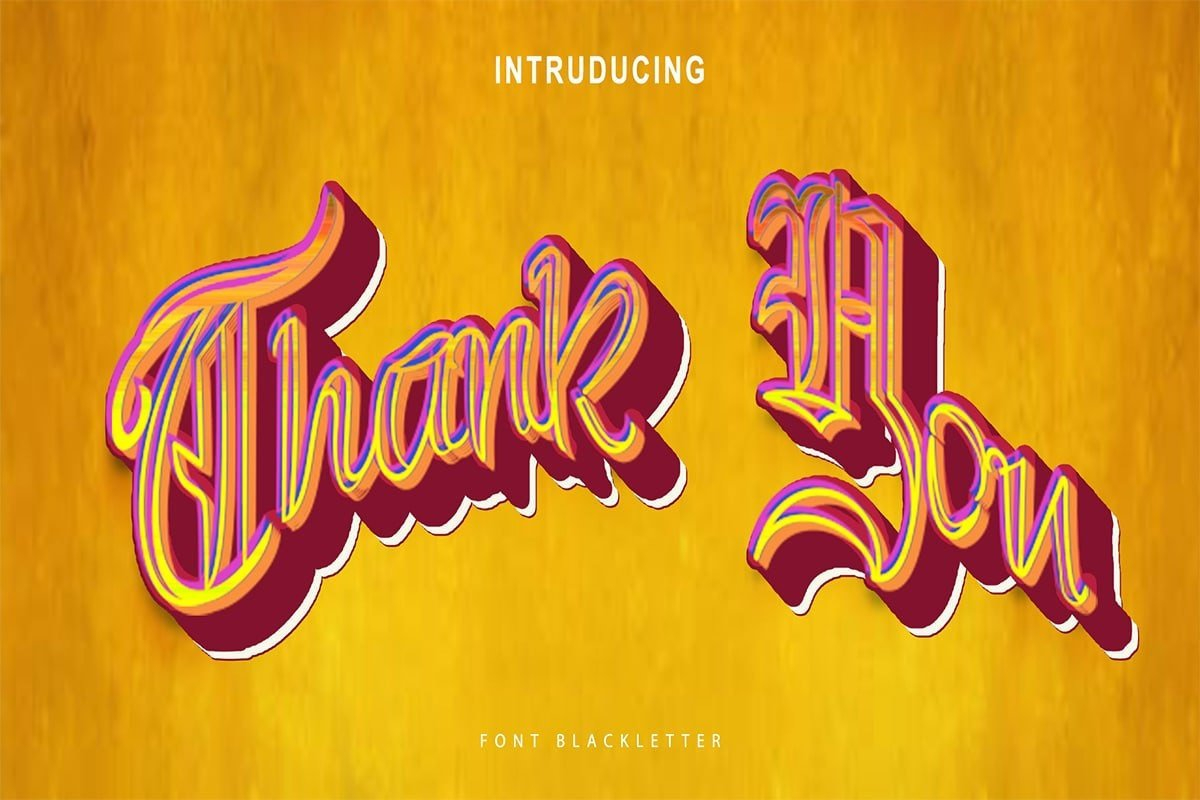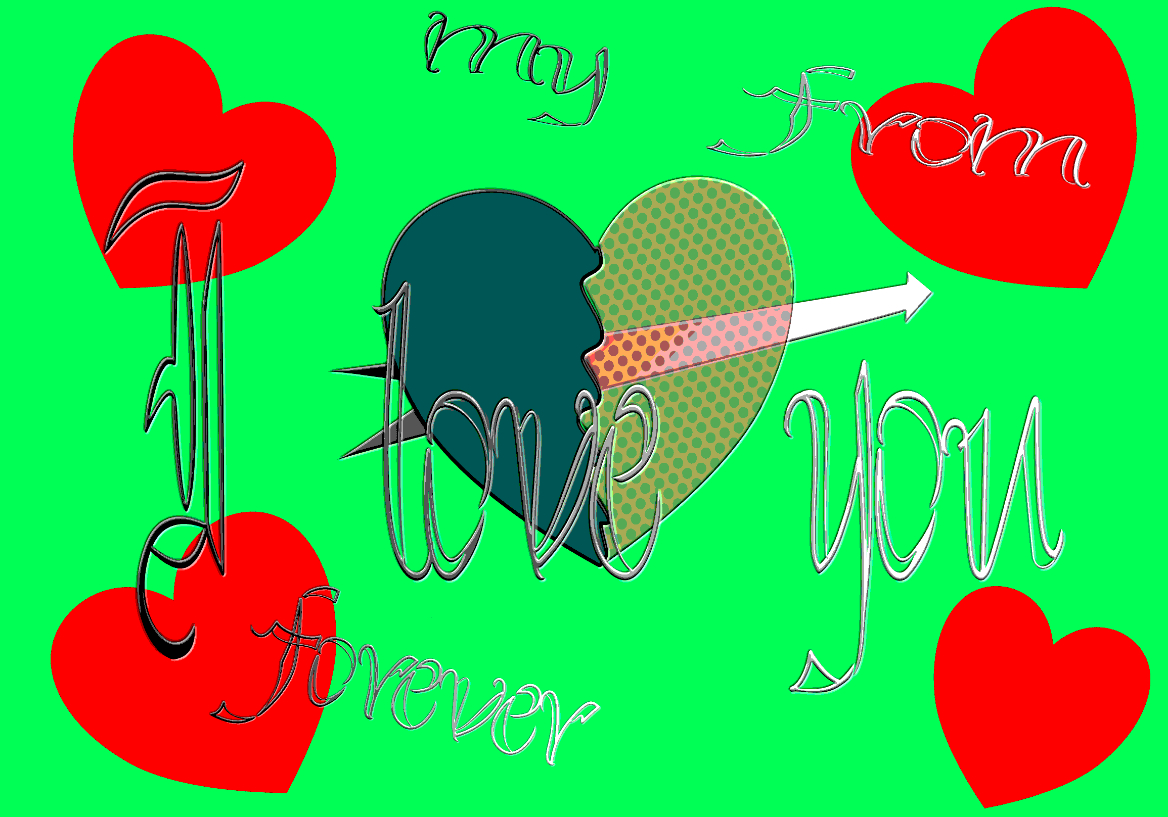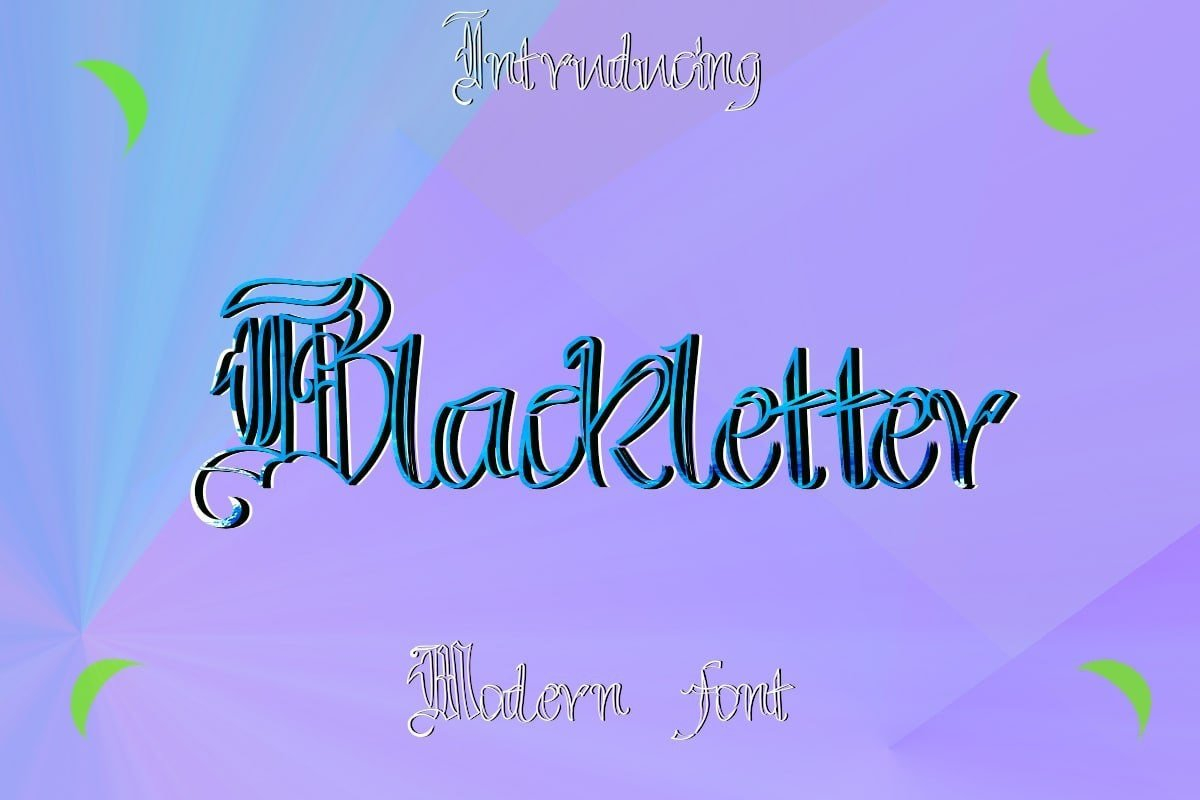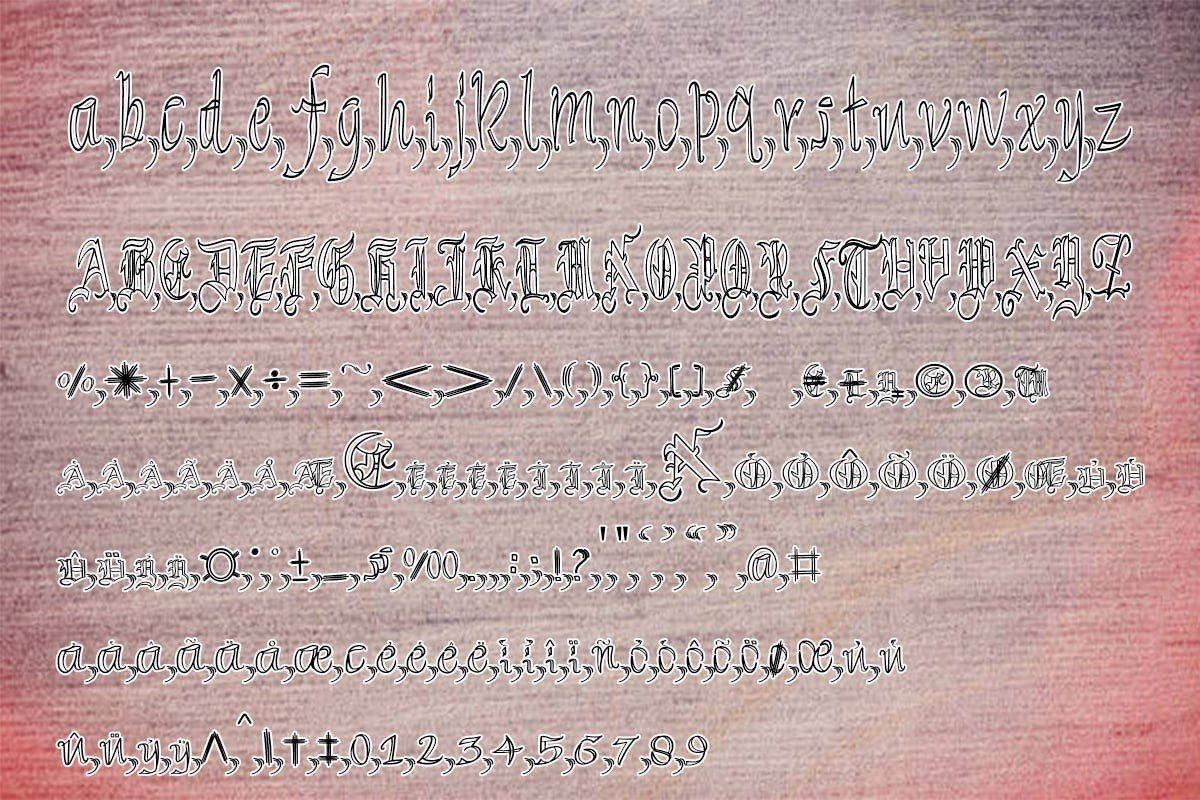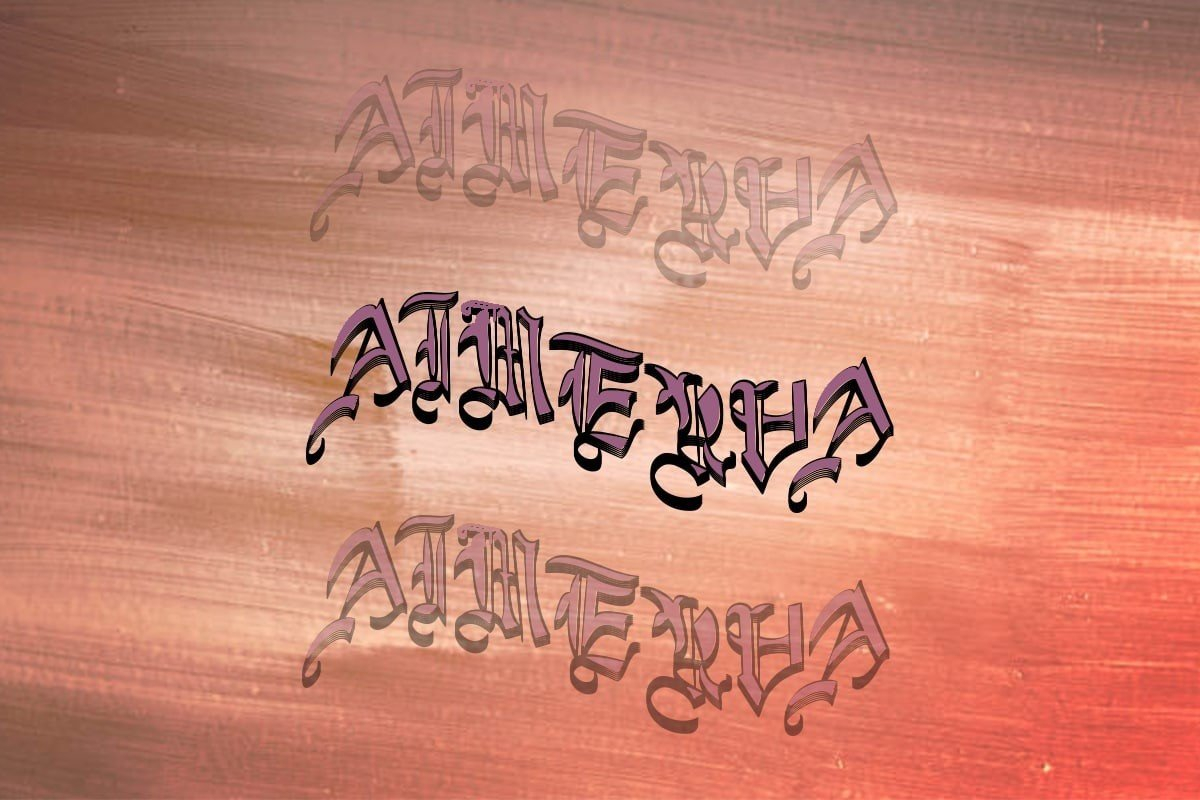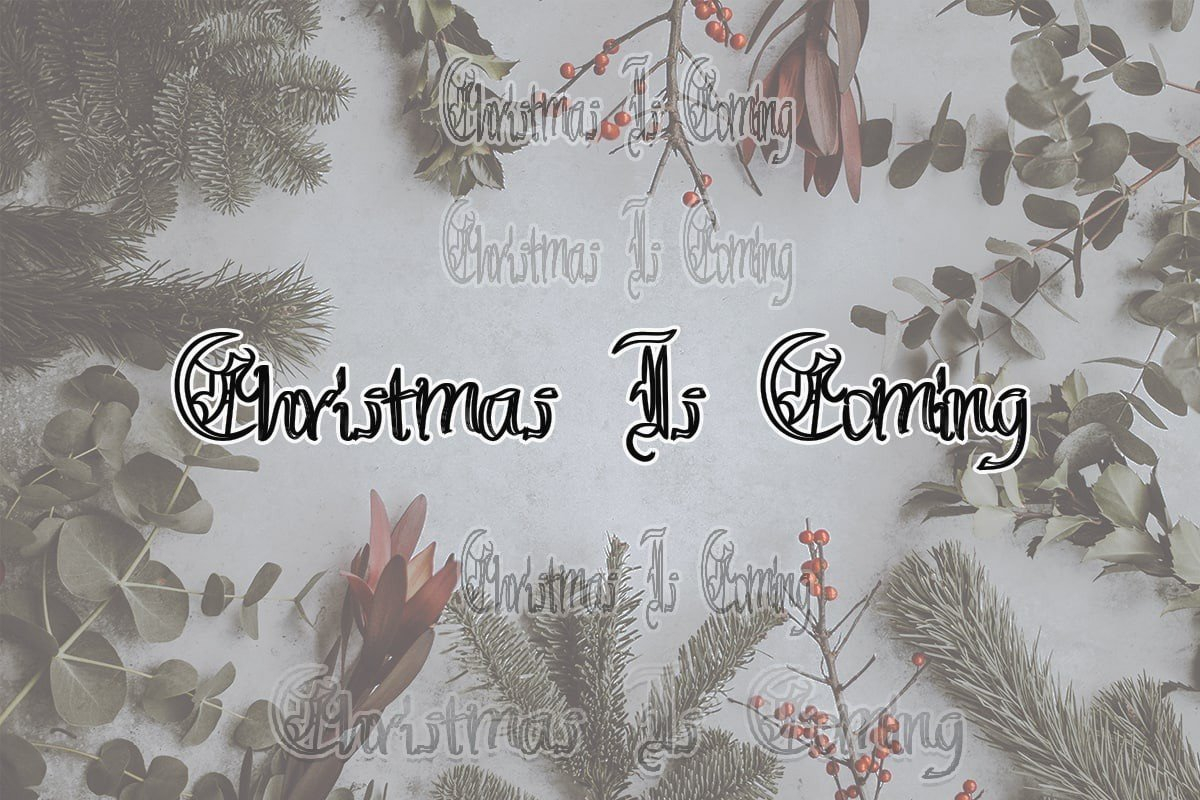
Blackletter Font
About Blackletter Font
Blackletter is a cool, Gothic-style font. This daring font is perfect for adding a dramatic touch to your designs.